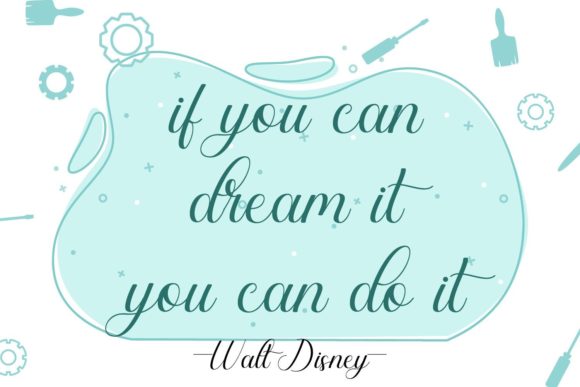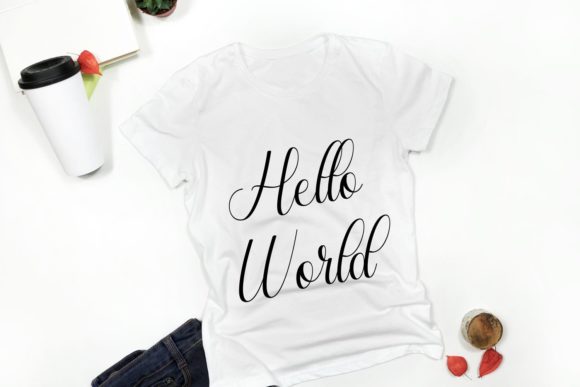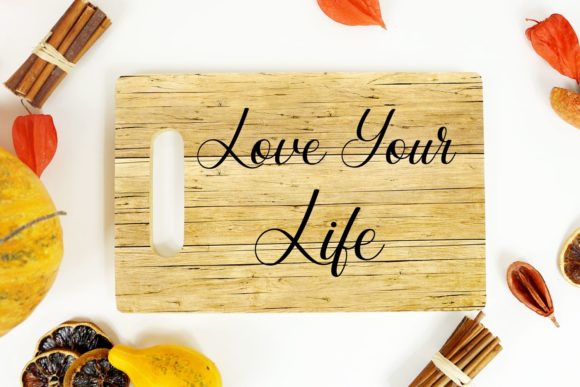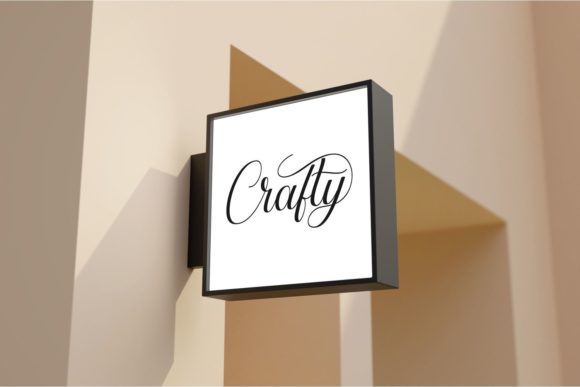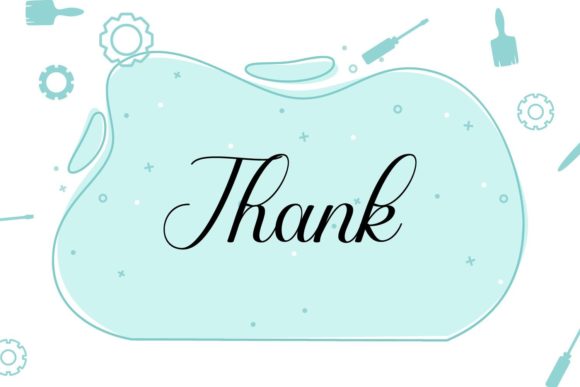
Crafty Holiday Font: Elevate Your Designs with Elegance and Sophistication
Are you looking for a font that exudes class, elegance, and modernity? Look no further than Crafty Holiday Font! This beautiful script font is perfect for designers and crafters seeking to add a touch of sophistication to their projects. With its refined and polished look, Crafty Holiday Font is ideal for a wide range of applications, from logos and branding to invitations, stationery, wedding designs, and social media posts.
The Characteristics of Crafty Holiday Font
Crafty Holiday Font boasts a unique blend of classic and modern elements, making it a versatile and stylish choice for any design project. Its key features include:
- Elegant Script Style: Crafty Holiday Font features a beautiful, flowing script style that adds a touch of elegance and sophistication to any design.
- Classy and Modern Look: The font’s refined and polished look makes it perfect for designs that require a classy and modern aesthetic.
- High Versatility: Crafty Holiday Font can be used for a wide range of applications, from logos and branding to invitations, stationery, wedding designs, and social media posts.
Uses for Crafty Holiday Font
Crafty Holiday Font is an incredibly versatile font that can be used in a variety of design projects. Here are some ideas to get you started:
- Logos and Branding: Use Crafty Holiday Font to create a sophisticated and elegant logo that reflects your brand’s values and personality.
- Invitations and Stationery: Add a touch of class and elegance to your invitations, greeting cards, and stationery with Crafty Holiday Font.
- Wedding Designs: Make your wedding designs truly special with Crafty Holiday Font, perfect for wedding invitations, programs, and decorations.
- Social Media Posts: Elevate your social media posts with Crafty Holiday Font, ideal for creating eye-catching graphics and promotional materials.
Why Choose Crafty Holiday Font?
With so many fonts available, why choose Crafty Holiday Font? Here are just a few reasons:
- Unique and Exclusive: Crafty Holiday Font is a unique and exclusive font that will help your designs stand out from the crowd.
- Easy to Read: Despite its elegant and refined look, Crafty Holiday Font is easy to read and understand, making it perfect for body text and captions.
- High-Quality Design: Crafty Holiday Font is designed to the highest standards, ensuring a crisp and clean appearance in any design.
Tips for Using Crafty Holiday Font
To get the most out of Crafty Holiday Font, here are a few tips:
- Use it Sparingly: While Crafty Holiday Font is beautiful, it’s best used sparingly to avoid overwhelming the design.
- Pair it with Other Fonts: Experiment with pairing Crafty Holiday Font with other fonts to create a unique and eye-catching design.
- Adjust the Size and Color: Don’t be afraid to adjust the size and color of Crafty Holiday Font to suit your design needs.
In conclusion, Crafty Holiday Font is a beautiful and refined script font that is perfect for designers and crafters seeking to add a touch of elegance and sophistication to their projects. With its versatile and stylish design, Crafty Holiday Font is ideal for a wide range of applications, from logos and branding to invitations, stationery, wedding designs, and social media posts. So why wait? Download Crafty Holiday Font today and elevate your designs to new heights!